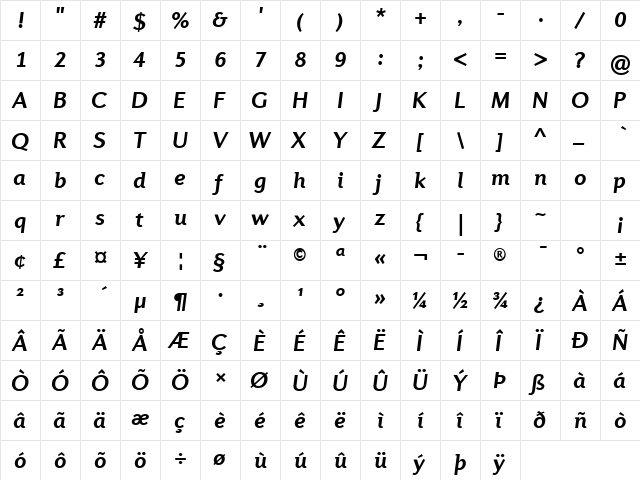
Diverda Sans Com Bold Italic
| Foundry | Linotype GmbH |
| Designer | Daniel Lanz |
Design Context for Diverda Sans Com Typeface
Diverda Sans Com offers clean, dependable letterforms without strong stylistic allegiance, making it a practical choice for designers who need flexibility. The dynamic lean of this cut emphasises speed and emphasis in any layout. The heavy weight commands attention and anchors typographic hierarchies.
Pro Tip: Use Diverda Sans Com for emphasis, pull quotes, and subheadings where its slanted energy can add rhythm to the layout.